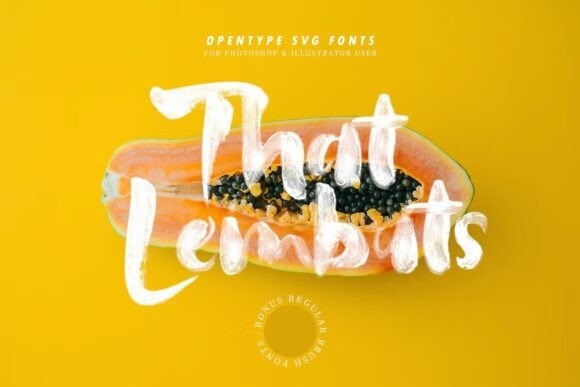
That Lembuts Font
That Lembuts Font is a hand-painted font pack containing two Opentype fonts, SVG & Regular Brush fonts. These Opentype SVG fonts keep all of the transparency and texture of the original painted letters. Lembuts will make your design projects burst with character and charm and will make your design projects look realistic. Each letter and symbol was hand-painted.